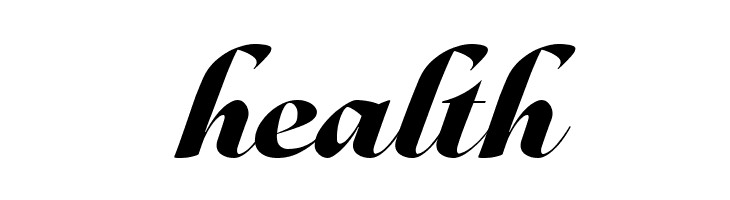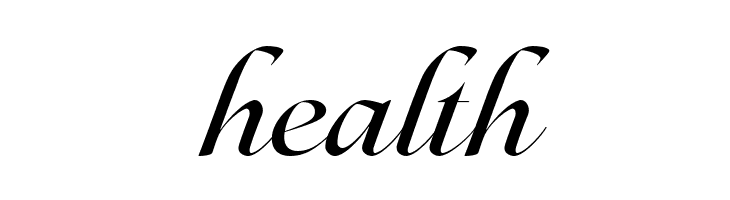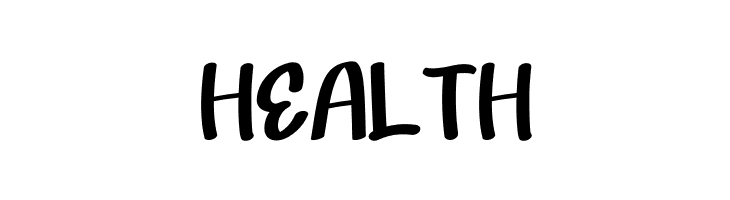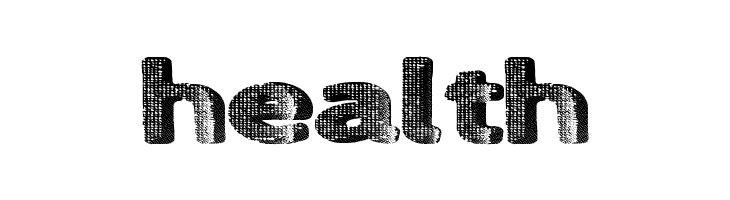
An elegant, flowing script font with ornate uppercase letters and smooth, connected lowercase letters.
An elegant and flowing script font with high contrast and cursive style.
A bold, textured font with a retro halftone pattern and rounded characters.
A bold, elegant script font with high contrast and flowing cursive letterforms.
An elegant script font with flowing, cursive strokes and graceful curves.
A bold, expressive script font with flowing, cursive letterforms.
A decorative font with intricate line work and geometric shapes, offering a modern and artistic look.
A bold, playful handwritten font with a modern and friendly style.
A decorative font made of heart shapes, perfect for romantic themes.